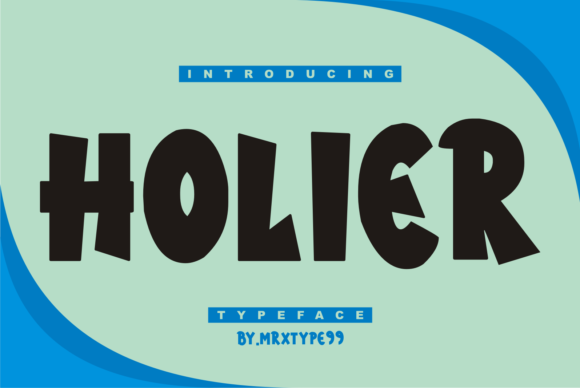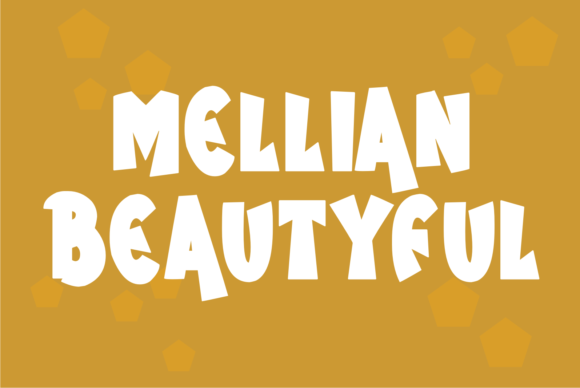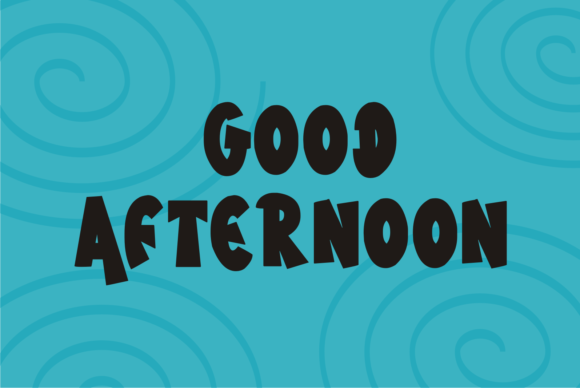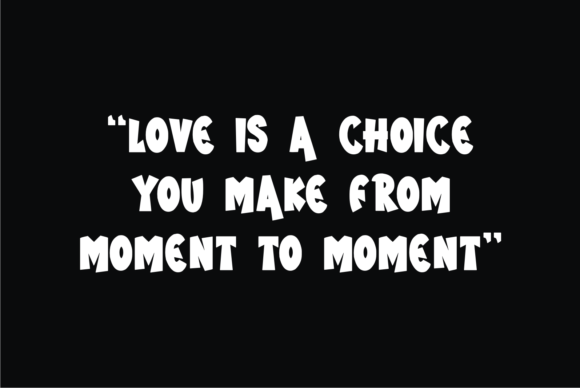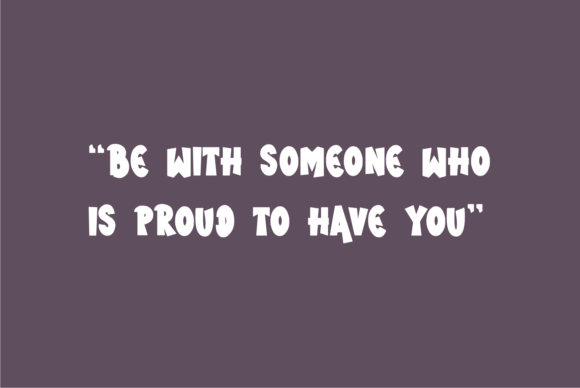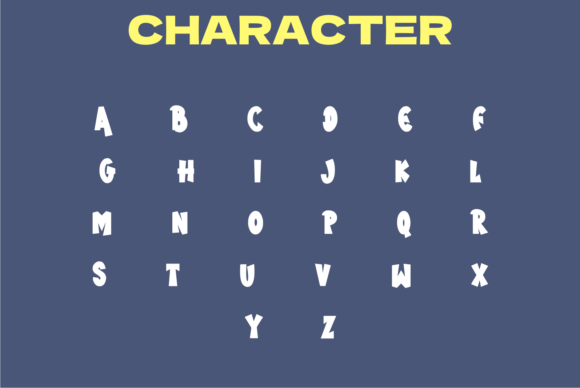
The Birth of a Masterpiece: Discovering the Power of Holier Font
Remember that moment when you’re brainstorming ideas for a new project, and suddenly a spark of creativity hits you? It’s like the universe is whispering in your ear, “This is it, this is the one.” For designers, those moments are precious, and the right tools can make all the difference. That’s where the Holier Font comes in – a game-changing display font that will elevate your creations to new heights.
With its thick letters and cool aesthetic, Holier Font is the perfect addition to any design project. Its simplicity belies its power, making it an instant head-turner. Whether you’re working on a branding campaign, a poster, or a digital product, Holier Font will give your work a professional, eye-catching edge. For designers, this font is a valuable asset, offering a unique visual effect that sets projects apart from the ordinary.
Holier Font Key Features
- Unique Characteristics: The font features a unique blend of modern and traditional elements, making it perfect for designs that require a touch of elegance and sophistication.
Holier Font Review
I’ve had the chance to work with “Holier Font” for a recent project, and I must say it’s been an interesting experience. Here’s what I think works well:
- ✨ Elegant and refined aesthetic: The font’s design is truly unique and adds a touch of sophistication to any text.
- ✨ Versatility: Holier Font is suitable for both print and digital applications, making it a great choice for various projects.
- ✨ Good legibility: The font is clear and easy to read, even at smaller sizes.
- ⚠️ Limited character set: The font’s character set is not as extensive as some other fonts, which might be a problem for projects requiring special characters or languages.
- ⚠️ Not ideal for body text: While Holier Font is great for headings and titles, it might not be the best choice for large blocks of body text due to its elegance being slightly overbearing.
- ⚠️ Some technical issues: I encountered some minor issues with font rendering and compatibility, which might be a problem for users who require a seamless experience.
Overall, I think Holier Font is a great choice for projects where a touch of elegance and sophistication is needed. However, it’s essential to consider its limitations and technical requirements to ensure a smooth experience.
Some tips for getting the most out of “Holier Font” include:
- Using it for titles and headings to add a touch of elegance.
- Applying it to text overlays in graphics and designs.
- Experimenting with different font sizes and colors to create visual interest.